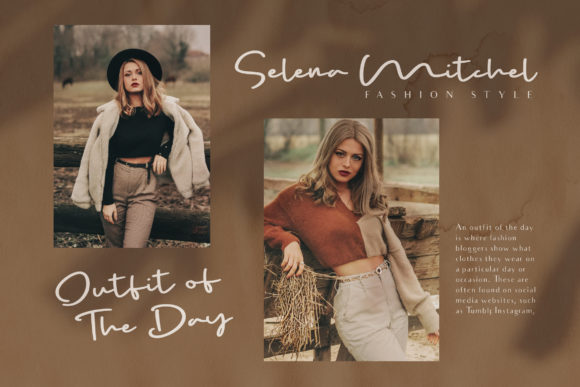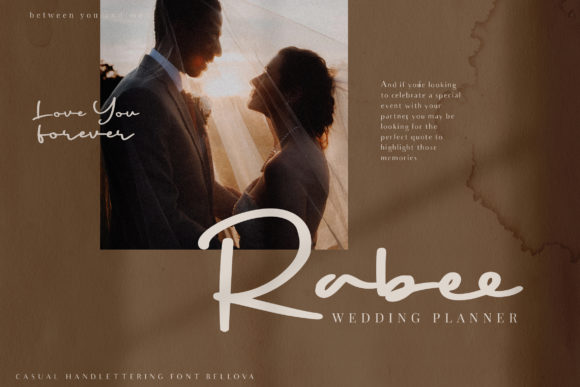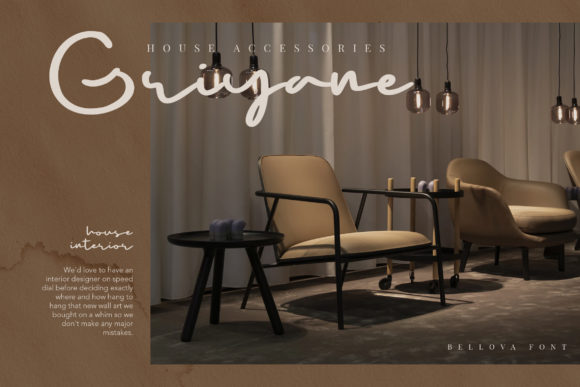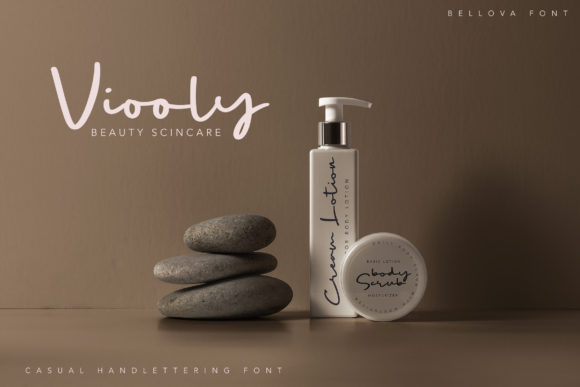
About Bellova Font
Introducing “Bellova” – a refined and adaptable handwritten font that is truly a work of art. With its distinct and well-rounded letters, Bellova captivates with its elegance and versatility. Fall in love with this font and unleash your creativity to create fashionable and eye-catching designs.
Bellova’s refined and graceful appearance adds a touch of sophistication to any project. Whether it’s creating stylish invitations, designing logos, crafting branding materials, or even curating fashion-forward layouts, Bellova elevates the visual appeal with its artistic charm.
The distinct letterforms of Bellova make it stand out among other handwritten fonts. Each letter is carefully crafted, showcasing attention to detail and a harmonious balance. The smooth curves and impeccable lines create a sense of elegance, making Bellova a true standout in the world of typography.
Versatility is a key strength of Bellova. It seamlessly adapts to various design contexts, from formal to casual, from playful to elegant. Whether you’re designing for a high-end fashion brand, creating beautiful wedding stationery, or even crafting social media graphics, Bellova’s adaptable style ensures it is up to the task.
Bellova opens up a world of possibilities for fashionable designs. Its versatility allows you to experiment with different layouts, pair it with other fonts, and explore various color combinations. Whether it’s creating trendy apparel designs, stunning website headers, or captivating magazine layouts, Bellova adds a touch of elegance that draws attention and leaves a lasting impression.
In conclusion, Bellova is a refined and adaptable handwritten font that invites you to unleash your creativity. Its distinct and well-rounded letters make it a true work of art, while its versatility allows you to create fashionable designs for a variety of purposes. Embrace the beauty of Bellova and let its elegant style transform your invitations, logos, branding materials, and more into captivating visual experiences.